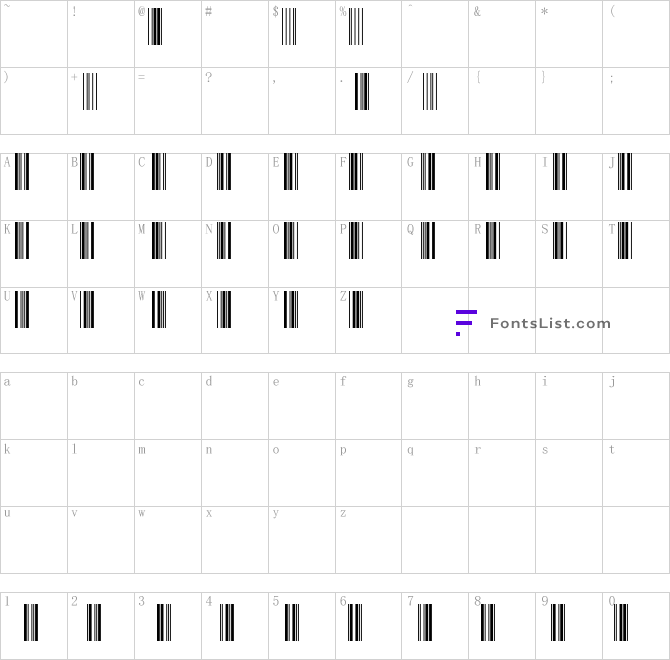
- Font Name:barcod39
barcod39.ttf is a very beautiful artistic font, barcod39.ttf is widely used in the design and printing of various books and pictures,barcod39.ttf has a strong visual impact,barcod39.ttf is a commonly used font in newspapers, magazines and books, and is used in posters, e-commerce Poster design, store design, logo design, font design and other fields.barcod39.